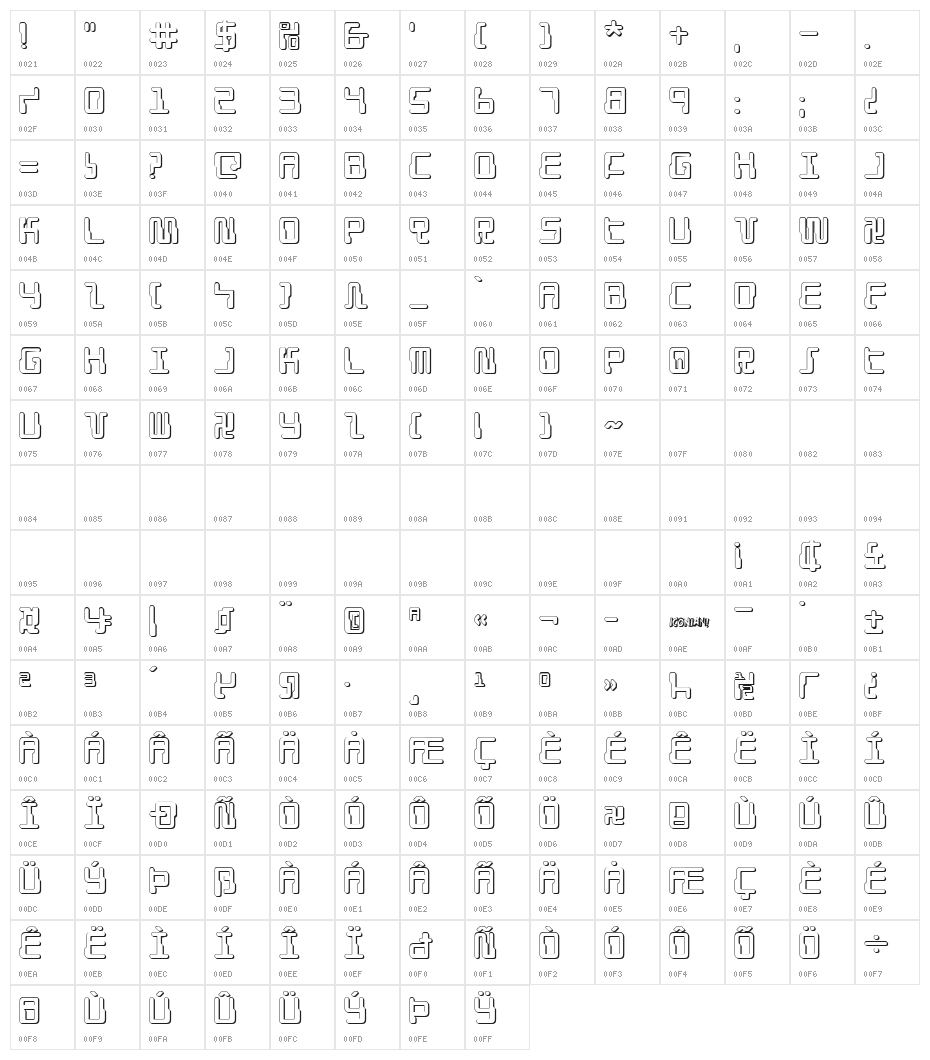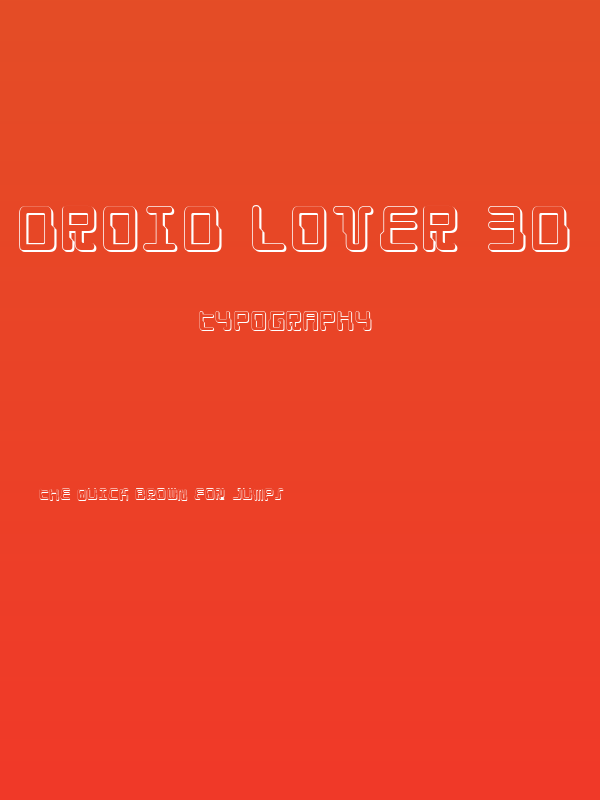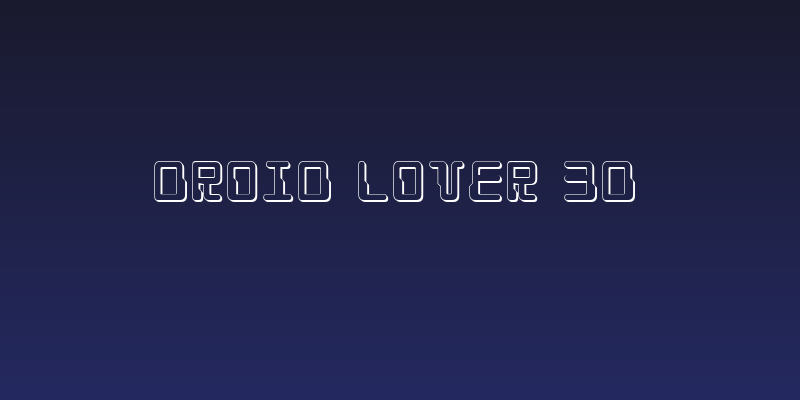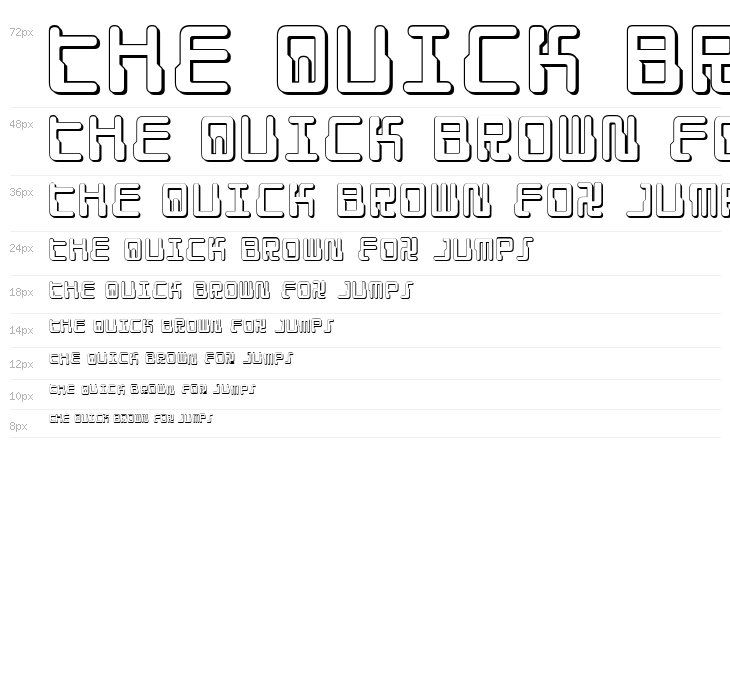
Droid Lover 3D Font
Droid Lover 3D Description
This font features a futuristic and geometric design, characterized by its bold, three-dimensional appearance. The letters are constructed with a consistent line thickness, creating a uniform and cohesive look. The angular and blocky shapes give it a robotic and digital feel, making it stand out in modern and tech-oriented designs. The uppercase and lowercase letters maintain a similar style, ensuring readability while adding a unique flair. Numbers and special characters are designed to match the overall aesthetic, providing a complete and versatile typeface.
| Proposed Projects | Ideal for tech-themed projects, sci-fi posters, video game titles, and digital interfaces. |